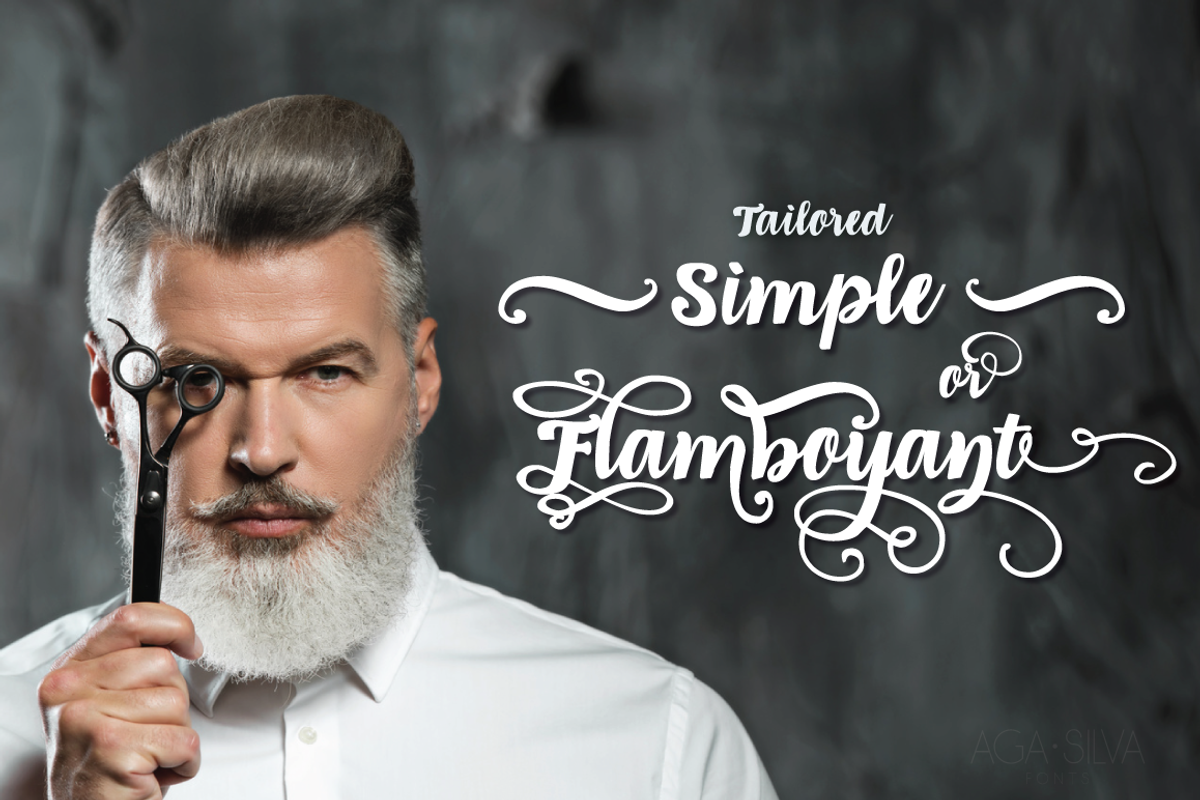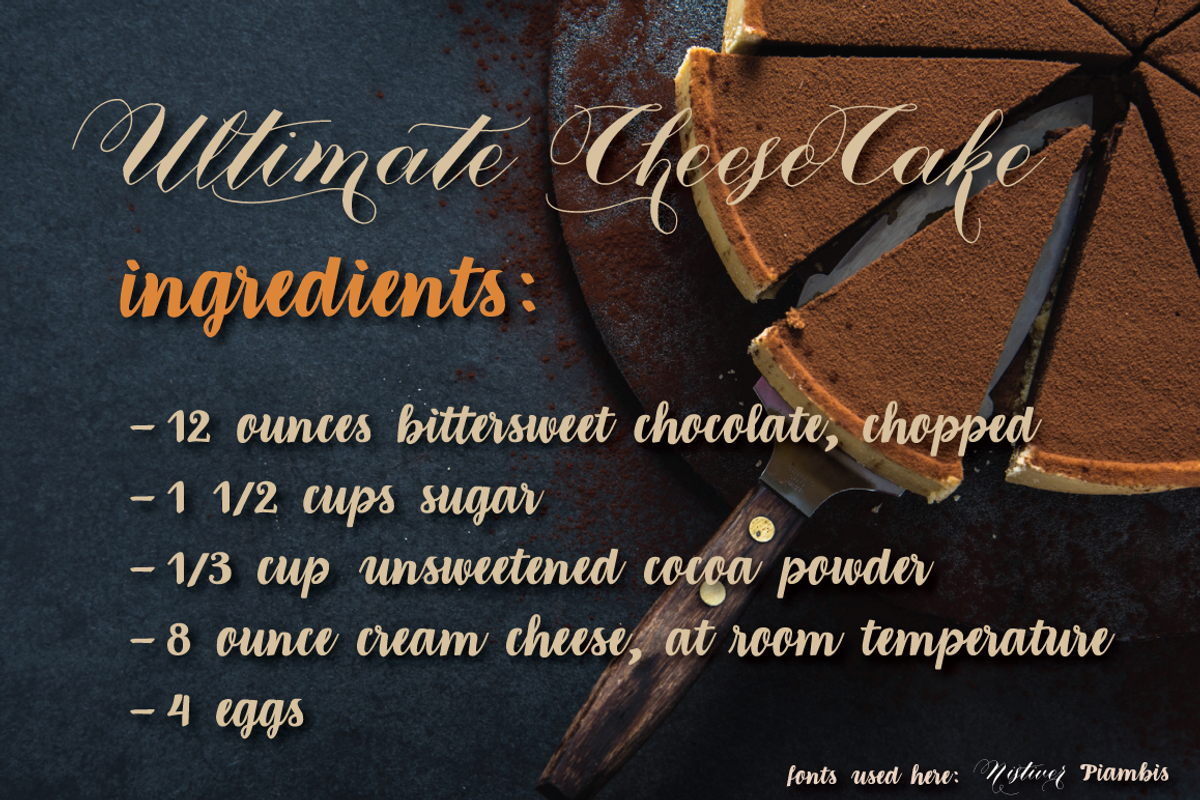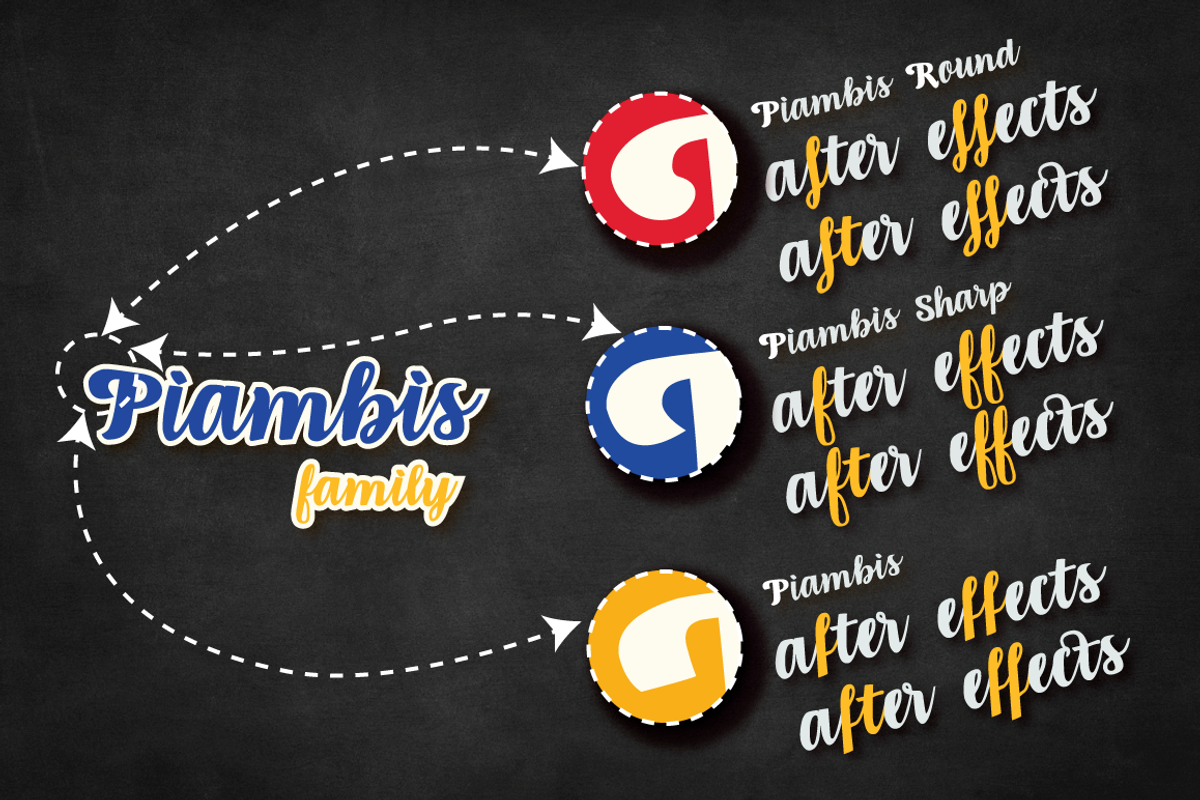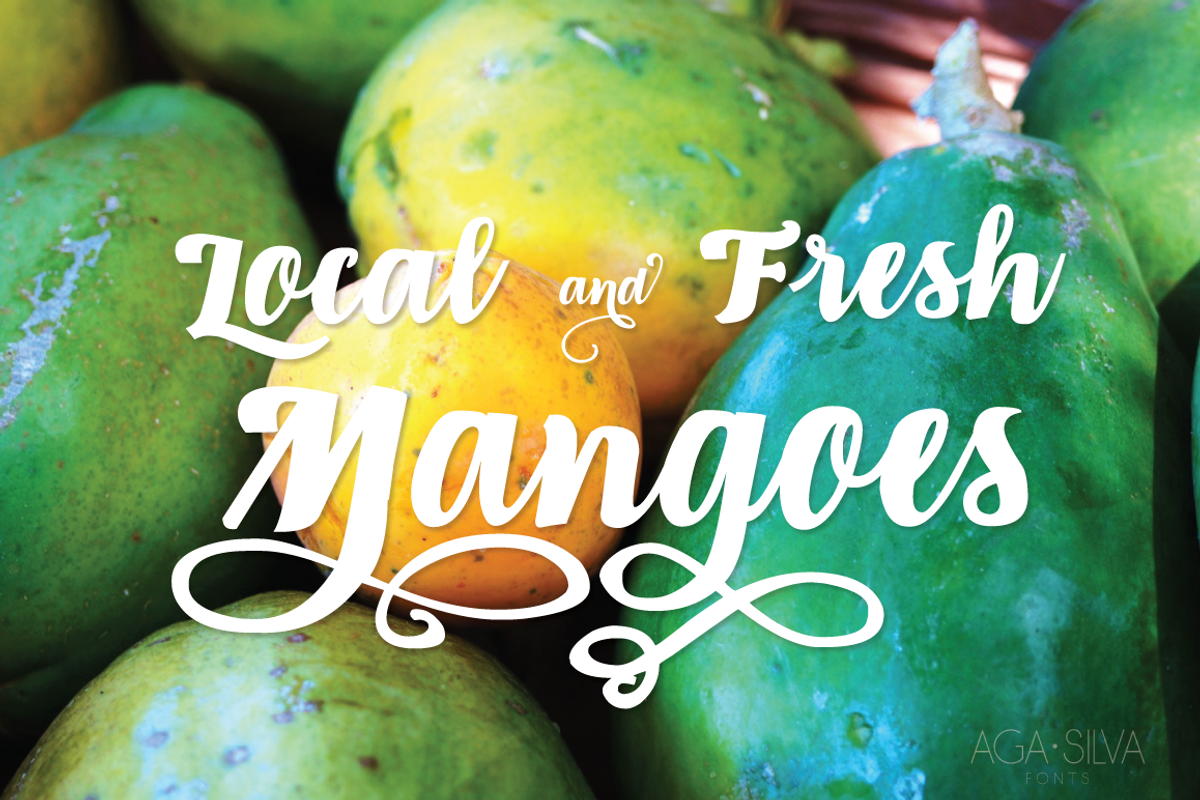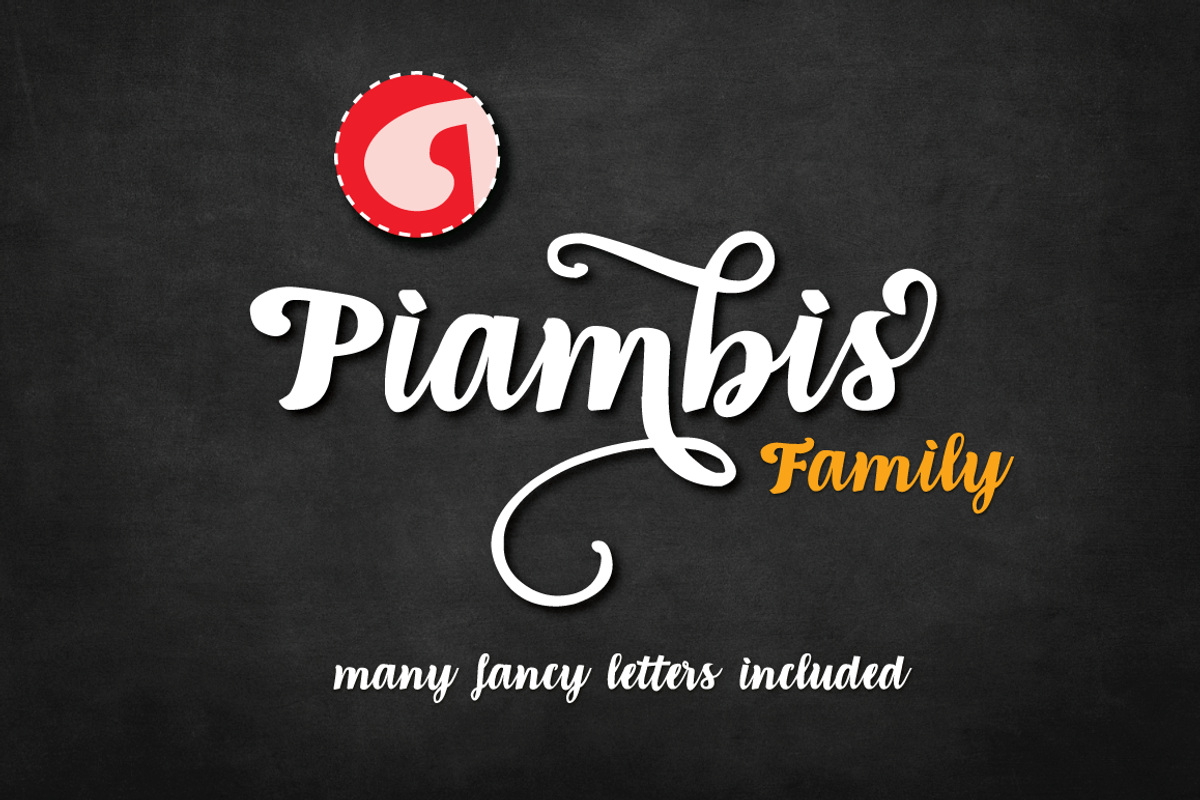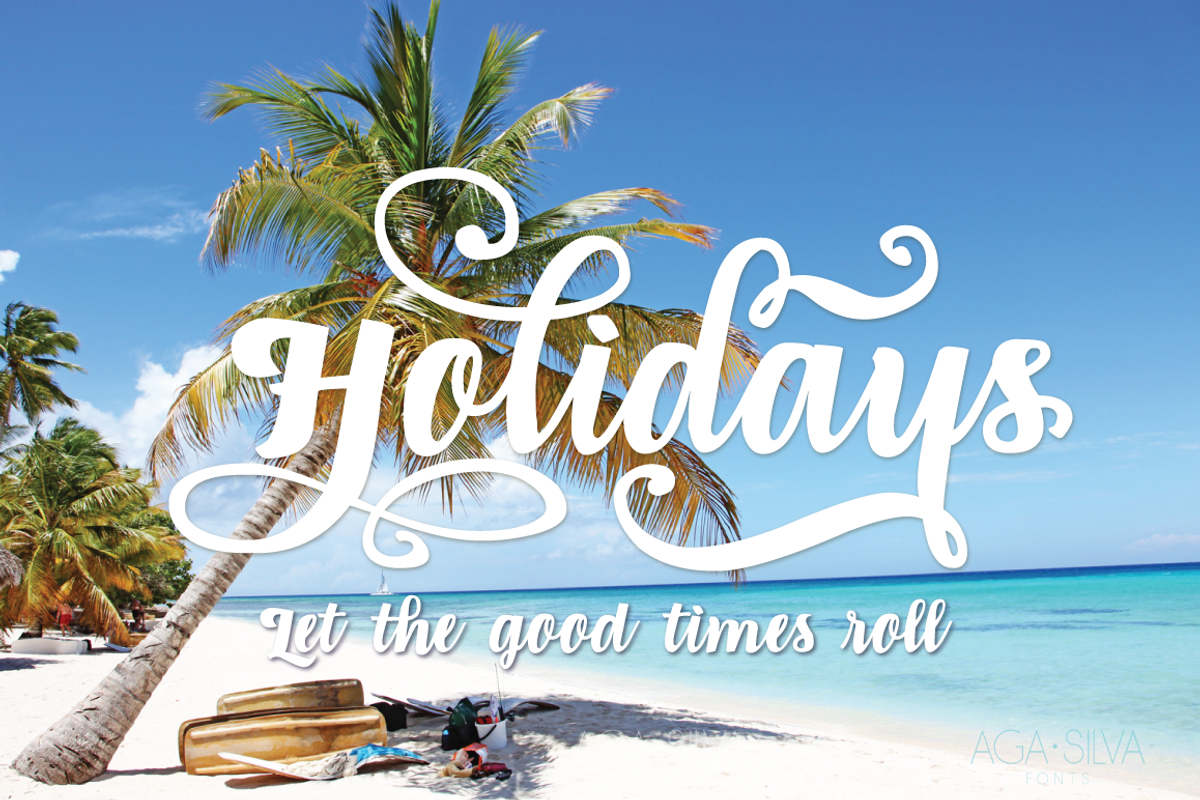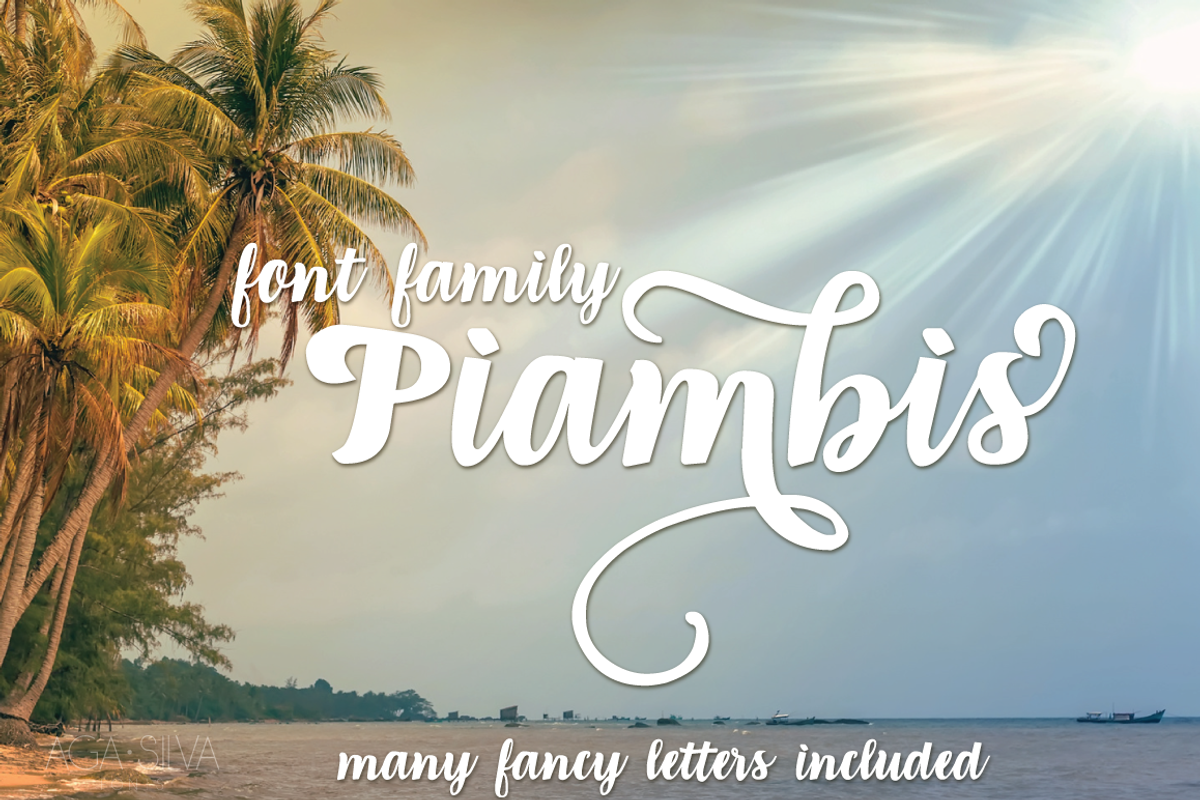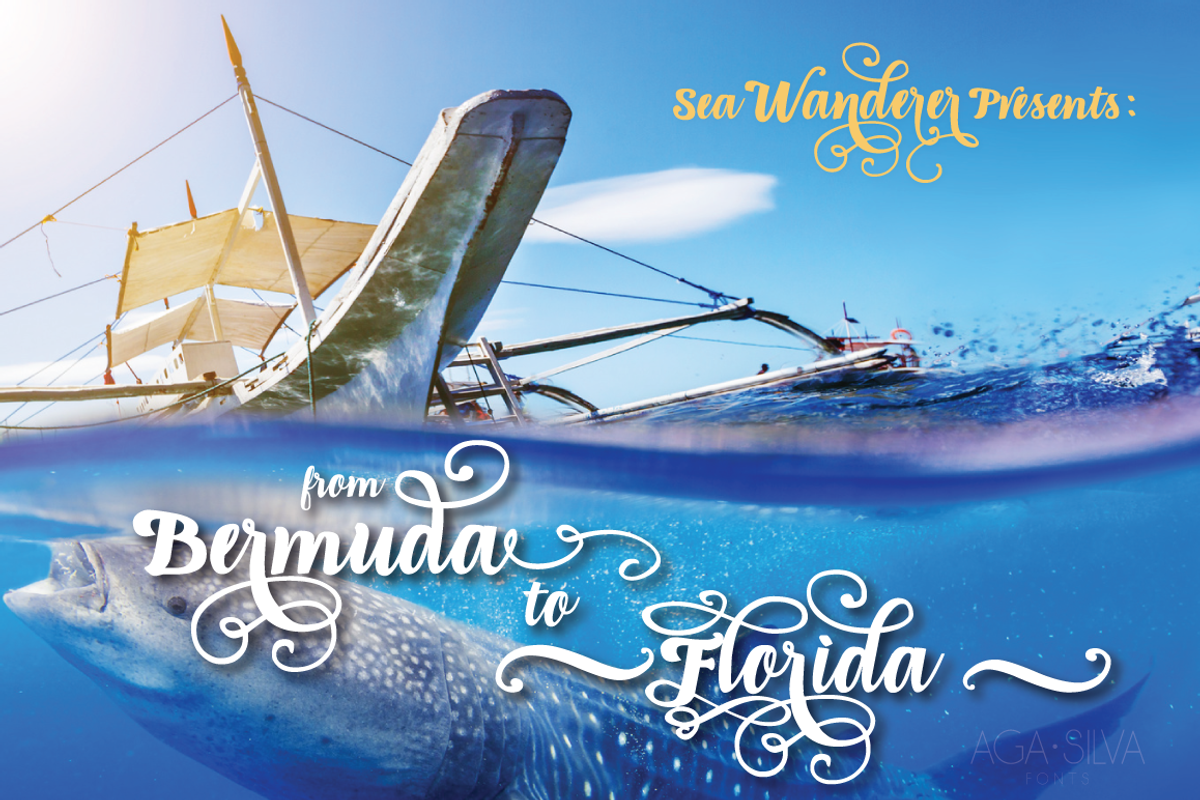
Piambis Family | three fonts incl.
Piambis Family | three fonts incl. by Aga Silva is a font selected for branding, posters, packaging, typography.
- All Alternates
- Contextual Alternates
- Kerning
- Standard Ligatures
- Stylistic Set 1
- Stylistic Set2
- Swash
Why Piambis Family | three fonts incl. is worth a look
Piambis Family | three fonts incl. by Aga Silva fits naturally into Branding, posters, packaging, typography.